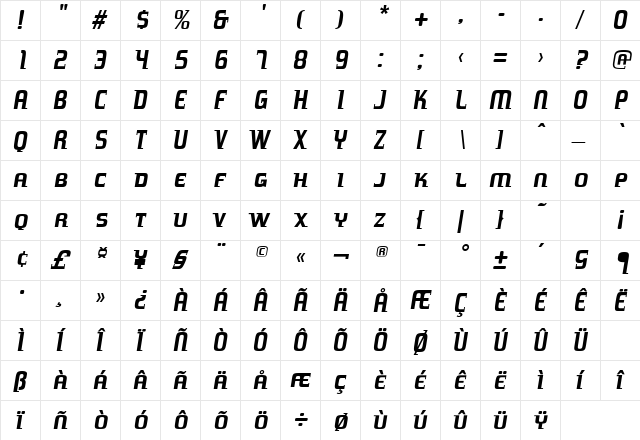
77London Fall
Design Context for 77London Typeface
77London offers clean, dependable letterforms without strong stylistic allegiance, making it a practical choice for designers who need flexibility.